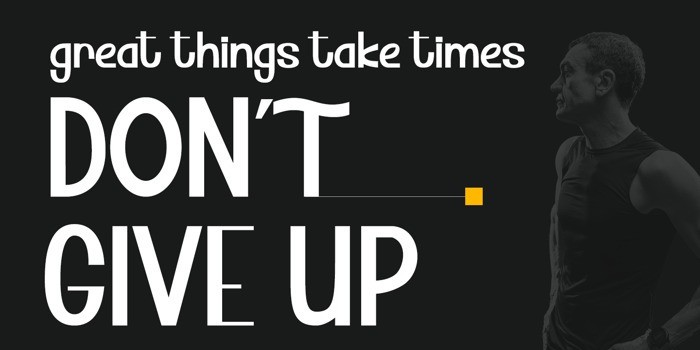
Thorsley Display Font
Thorsley Display Font is a Modern typeface with elegant in every single letter. This font looks modern, sporty, bold, scifi, technology, and amazing.
Thorsley Display Font is the best choice for your professional design projects, including : Sport, mascot, logo, poster design, t-shirt, headline, flyer, cd cover album, quotes, business card, branding, magazines, social media, advertisements, product designs, or something that need modern or futuristic looks.